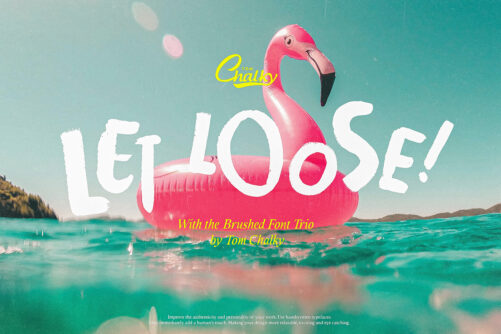
Brushed TC – Brush Font Trio
Introducing the Brushed TC Font Trio – a hand-painted typeface family that brings bold character and artistic flair to your designs.
Each style in this trio (Thick, Regular, and Light) is crafted to stand out while remaining legible at any size. With multilingual support and a full set of stylistic alternates for the Regular style, Brushed TC is versatile enough for branding, packaging, posters, social media, and more. Simple yet impactful, this brush trio is designed to be your go-to for adding personality and energy to any project.